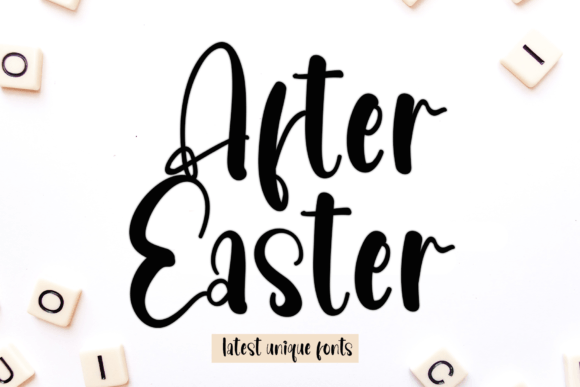
Introducing After Easter Font, the ultimate choice for those seeking the perfect cursive tattoo font! Crafted with utmost care and devotion by the talented designers at Black line, this script font is set to revolutionize your creative ventures.
Bringing a touch of elegance and sophistication, After Easter Font exudes a contemporary atmosphere that effortlessly blends with any project. Its impeccable form, inspired by timeless classic calligraphy, ensures that every stroke is artfully crafted with precision and finesse.
With its balanced and varied style, After Easter Font is more than just a font – it's a masterpiece that enhances the beauty of your projects. Whether you're designing a wedding invitation, a logo, or even a tattoo, this font will elevate your work to new heights, leaving a lasting impression on anyone who lays eyes on it.
The captivating nature of After Easter Font lies in its ability to convey emotions and tell stories. Each letter dances gracefully, exuding a sense of freedom and fluidity that captivates the viewer. It becomes an extension of your personality, allowing you to express your deepest emotions and sentiments through the art of writing.
But it doesn't stop there. After Easter Font is not only visually stunning, but it also possesses the power to evoke emotions. Its graceful curves and delicate strokes awaken a sense of nostalgia, reminiscent of a time when handwritten letters carried immense weight and meaning. It whispers tales of love, passion, and creativity, making it the perfect companion for heartfelt messages and artistic endeavors.
When you choose After Easter Font, you're not simply selecting a font – you're embracing a world of endless possibilities. Its versatility knows no bounds, allowing you to seamlessly incorporate it into various projects, from branding to packaging, social media posts to website designs.